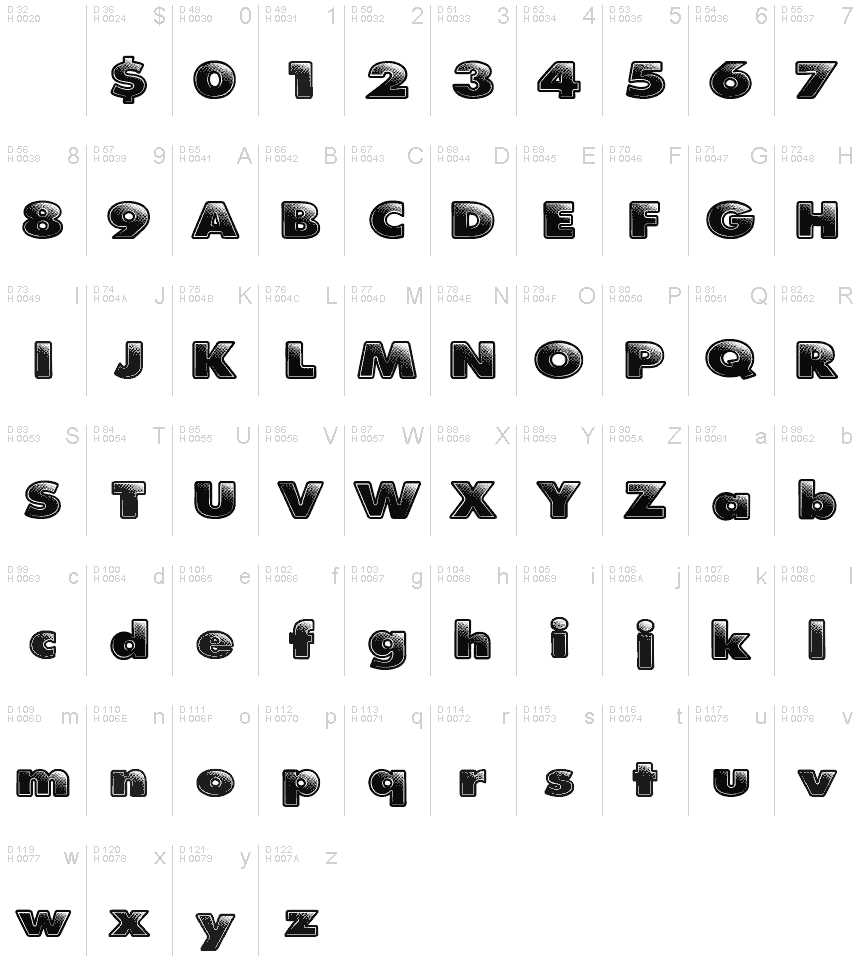
PitStop
PitStop, a striking creation by Xerographer Fonts' Max Infeld, stands out as an extra-bold, expanded display typeface that commands attention. Its robust letterforms exude confidence with a solid structure that's both impactful and aesthetically pleasing. The font's expanded width not only adds presence but also offers excellent readability, making it perfect for headlines, posters, and any project requiring a strong visual statement.
With PitStop, designers gain an assertive tool that brings personality to branding, advertising, and creative endeavors seeking to make an unforgettable impression.